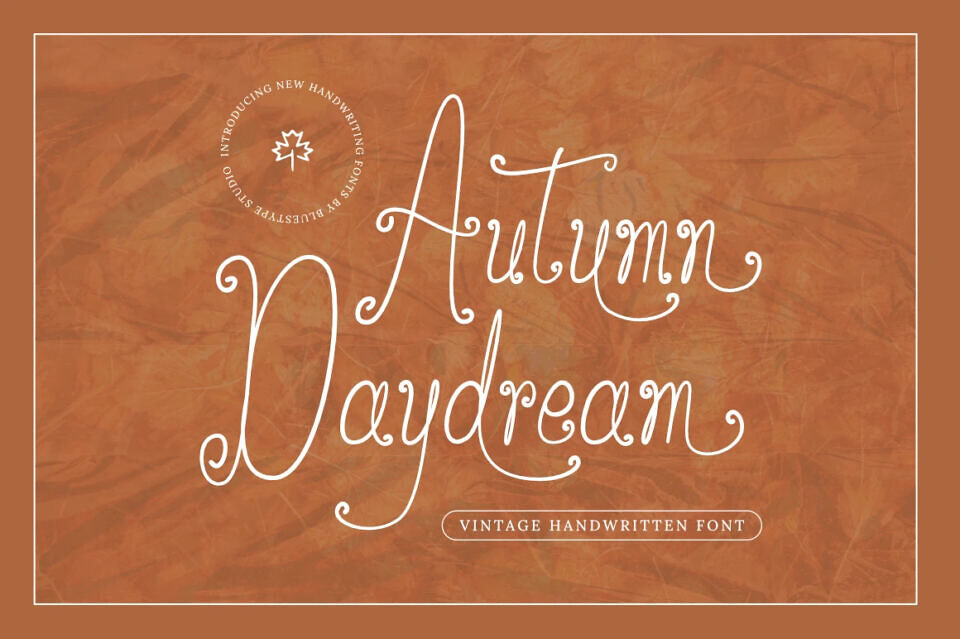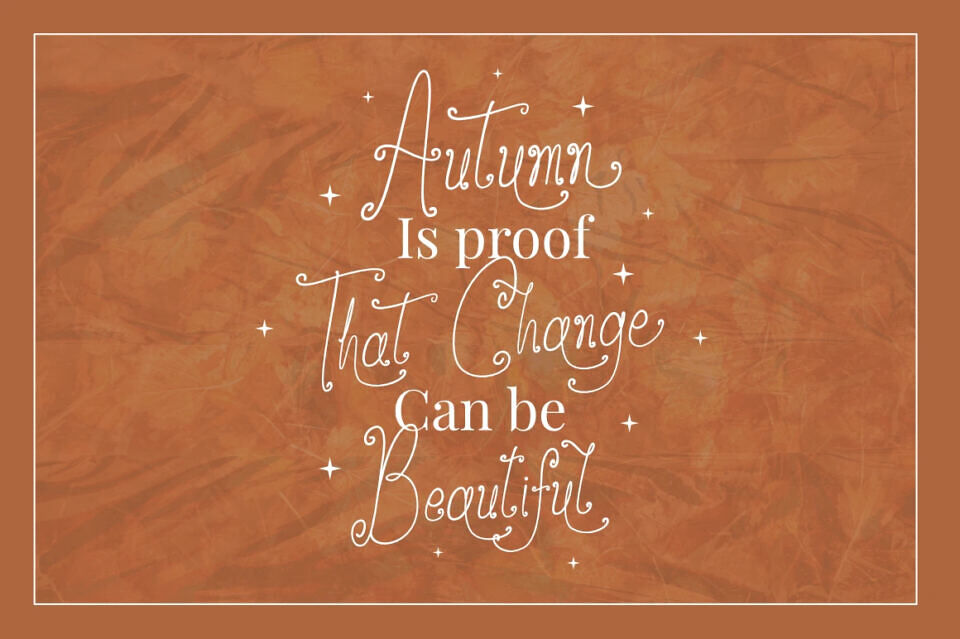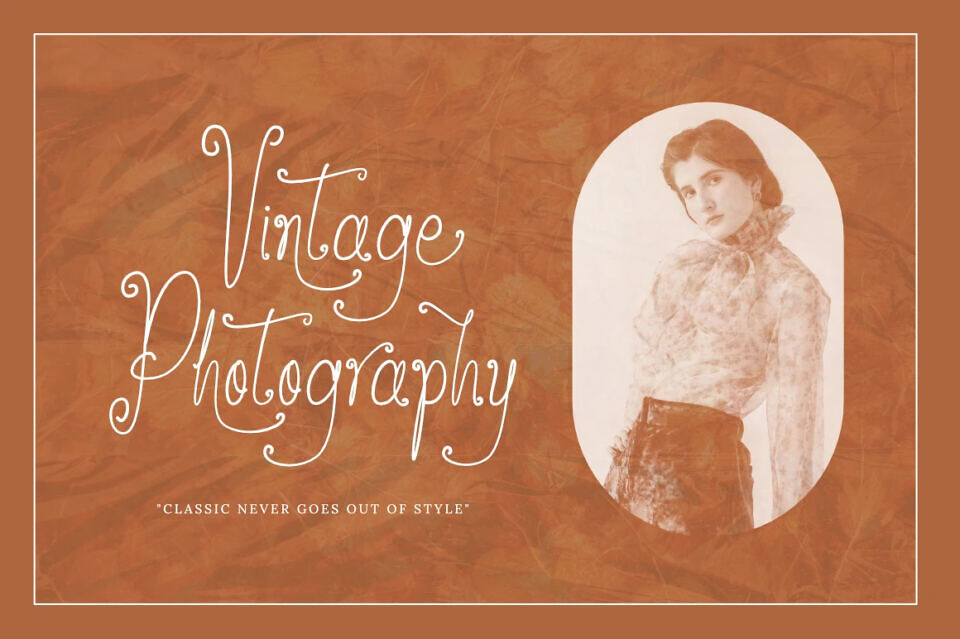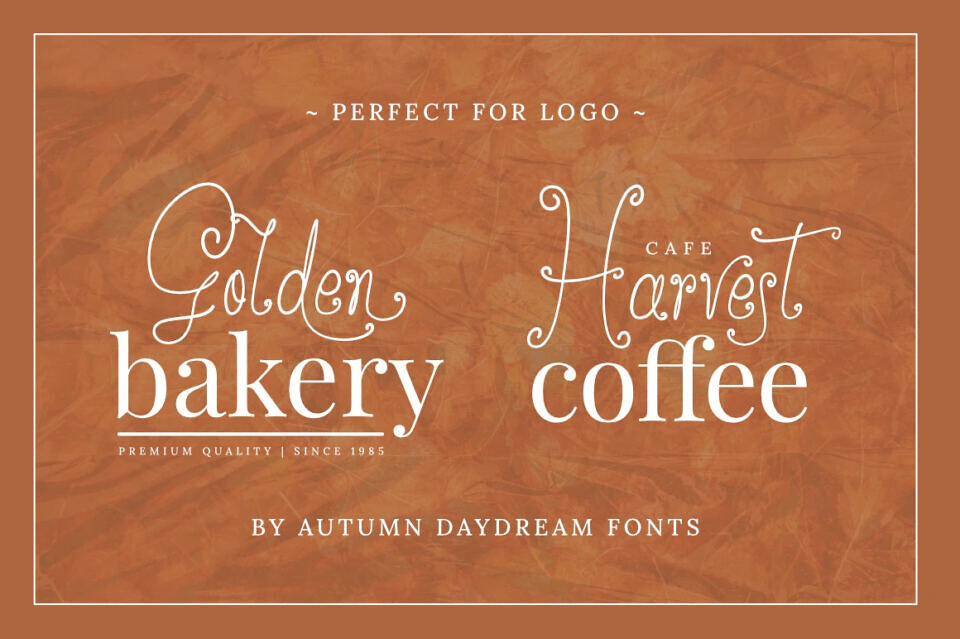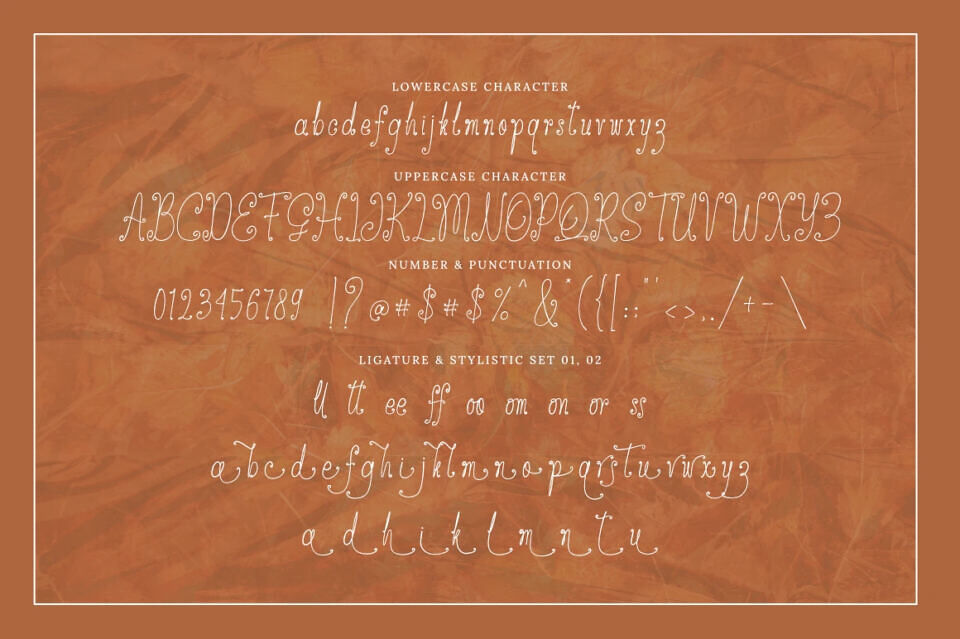
Autumn Daydream Font
Embrace nostalgia and classic charm with Autumn Daydream, a vintage handwritten font designed to bring a timeless, organic warmth to your creative projects. Crafted with fluid, retro-inspired strokes, this font captures the authentic essence of old-school penmanship, offering a relaxed yet sophisticated aesthetic with a beautifully aged feel.